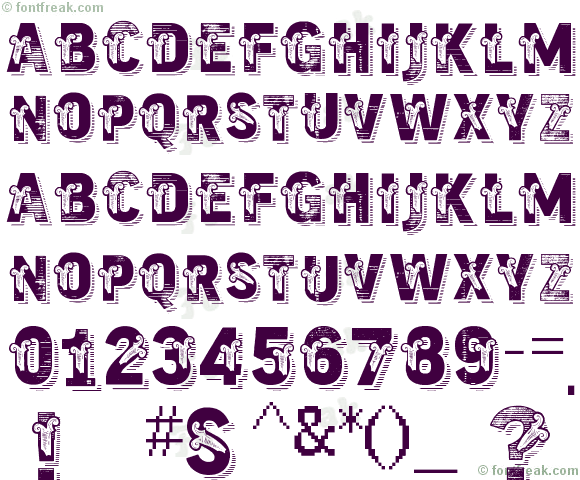
vtks trutagem
About vtks trutagem
The vtks trutagem font, created by Douglas Vitkauskas, is a unique display typeface that combines playful elements with a bold visual presence. This font features a distinctive style characterized by its thick strokes and rounded forms, giving it a strong yet inviting appearance. The design incorporates decorative elements that evoke a sense of whimsy, making it an excellent choice for creative projects. The contrast between the heavy strokes and the lighter decorative accents enhances its visual appeal, while the spacing between letters allows for easy readability, even in larger formats.
Due to its eye-catching design, vtks trutagem is particularly well-suited for a variety of applications. It shines in contexts such as wedding invitations, where its playful nature adds a touch of charm. Additionally, it works wonderfully for movie posters, capturing attention with its bold presence. Restaurant menus can benefit from the font’s unique flair, enticing customers with a visual treat. Furthermore, it can be employed effectively in branding materials for small businesses looking to make a memorable impression.
What sets vtks trutagem apart is its ability to blend fun and functionality. Its decorative yet legible design makes it a standout choice for projects that require a balance of creativity and clarity. This font is not just a typeface; it’s an artistic statement that can bring any project to life, making it an essential addition to any designer's toolkit.